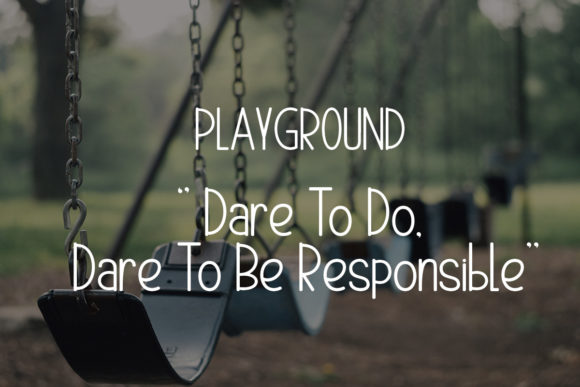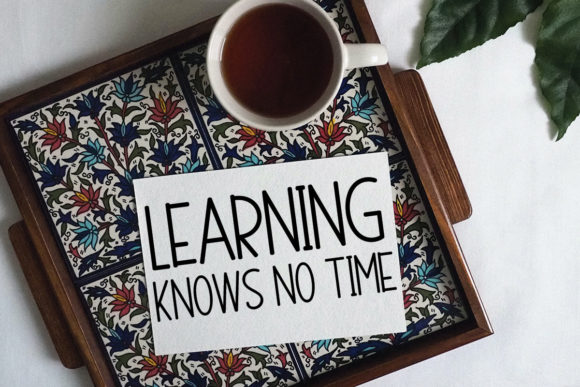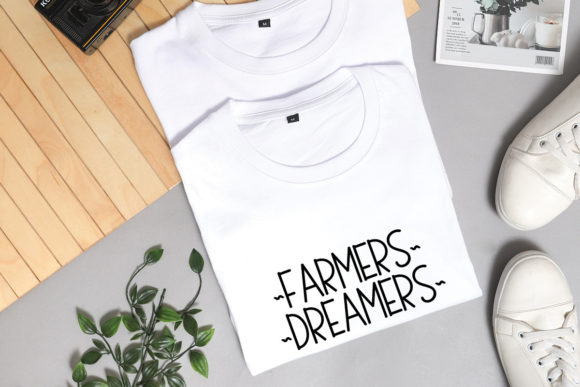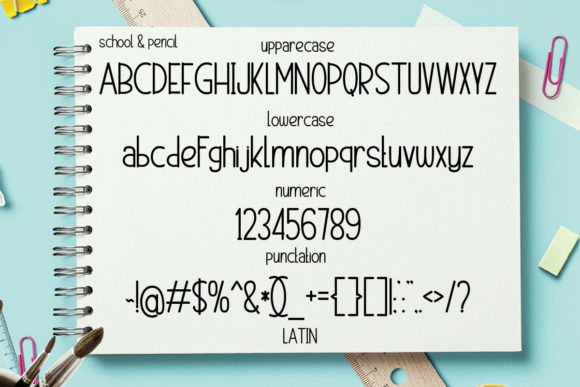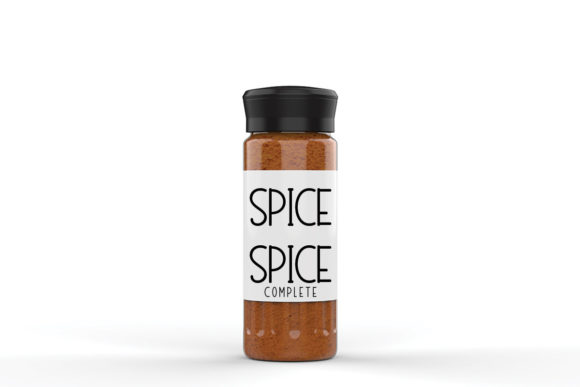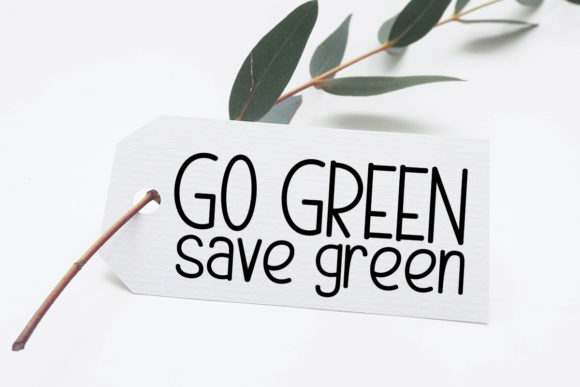
Introduction to School and Pencil Font
School and Pencil is a clean and simple sans serif font with a delicate appearance.
This font is suitable for projects related to children, birthday invitations, and many other creations requiring a light touch .
Key Features of School and Pencil Font